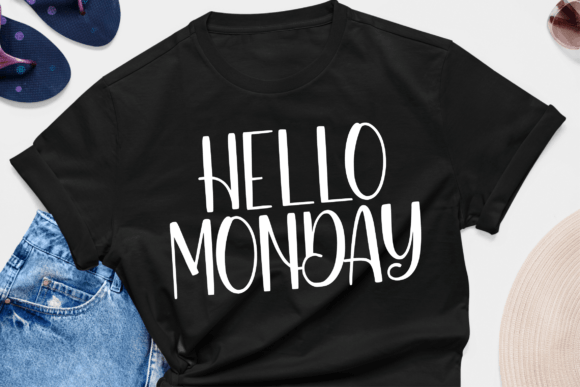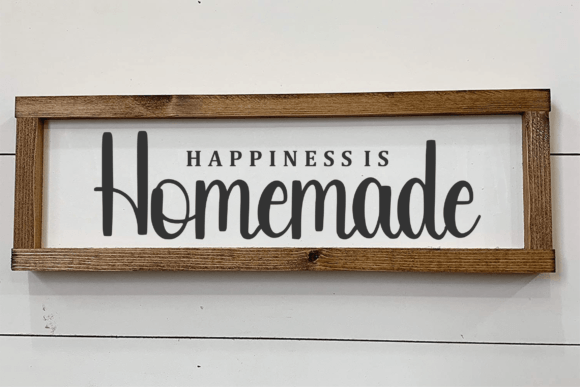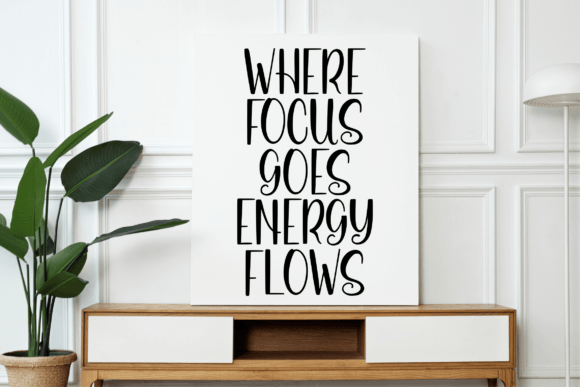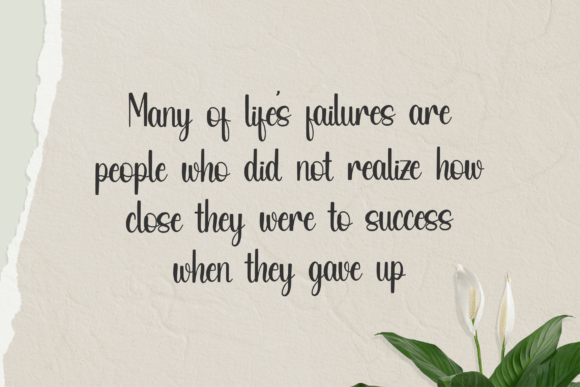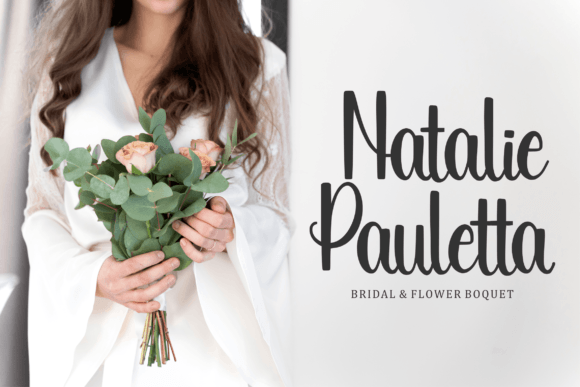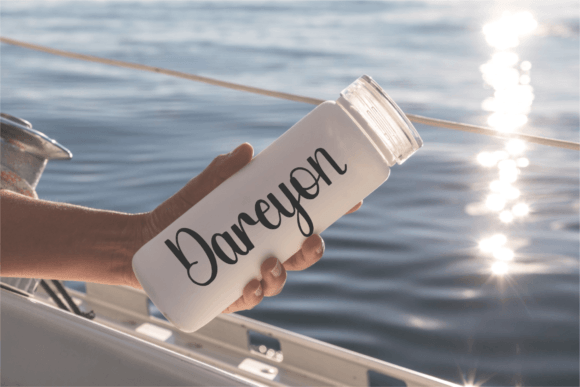
Where Creativity Meets Authenticity
Have you ever been brainstorming a new project, and suddenly, a spark of inspiration hits you? That’s exactly what happened when I first laid eyes on the Beingnice Font. Its unique, handwritten charm immediately captured my attention, and I knew I had to learn more about it.
The Beingnice Font is a beautiful, handcrafted typeface designed to add a personal touch to any design project. Whether you’re working on product packaging, branding, magazines, or social media, this font is sure to make your creations stand out. As a designer, you know how valuable it is to have the right tools at your fingertips – and the Beingnice Font is definitely one of them.
Key Features of Beingnice Font
- Unique Characteristics: The Beingnice Font features a unique blend of modern and vintage elements, making it perfect for creative projects and branding
Designer Review: Beingnice Font
At first glance, Beingnice Font seems like a pleasant addition to any design project. ✨ The rounded edges and soft curves give it a friendly, approachable feel that’s perfect for children’s books, websites, or any content that needs to convey a sense of warmth.
- The font is highly legible, even at small sizes, making it suitable for a wide range of applications.
- Its versatility in terms of weight and style options allows for a lot of creative freedom.
- Beingnice Font is also highly customizable, which is a major plus for designers who like to fine-tune their typography.
However, there are a few limitations to consider. ⚠️ For one, the font may not be as effective in formal or professional settings, where a more serious tone is required.
Overall, I’d say Beingnice Font is a solid choice for designers who need a friendly, approachable font. While it may not be the best fit for every project, it’s definitely worth considering for the right application.
Tips for Getting the Most Out of Being Nice Font
Being Nice Font is a versatile and elegant font that can be used in a variety of design projects. To get the most out of it, try using it in combination with other elegant fonts to create a sophisticated look.
Being Nice Font is particularly well-suited for use in wedding invitations, branding materials, and other designs where a touch of elegance and sophistication is desired.